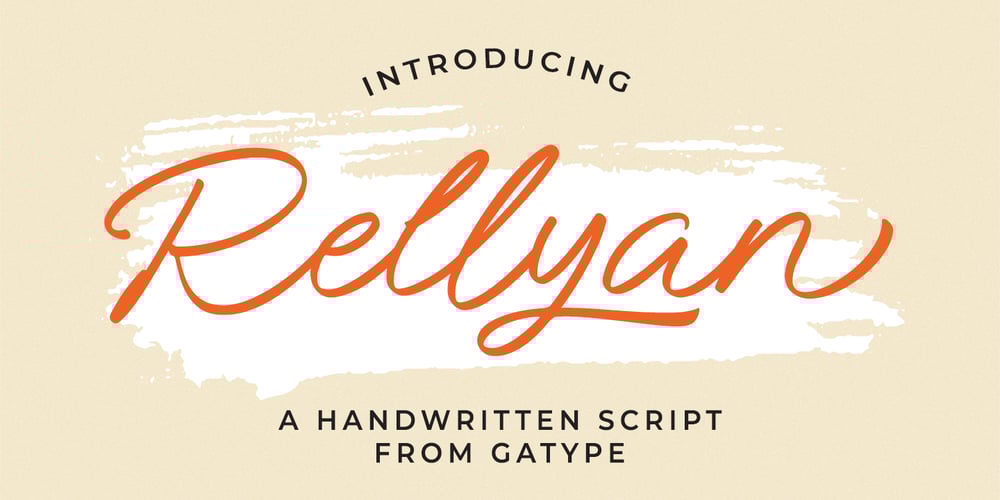
Rellyan Font Family was designed by khaidir and published by Gatype. Rellyan contains 1 styles and family package options. Hello friends… We are proud to present our new font. Rellyan’s new natural script with handwriting and script style makes this font look elegant, natural, stylish.Rellyan will be perfect for invitations, logos & branding, photography, advertising, watermarks, social media posts, product packaging, product designs, labels, wedding designs, stationery, special events or anything else that requires a taste for handwriting.Rellyan brings OpenType style alternatives, International binders, and support for most Western Languages is included. To enable the OpenType Stylistic alternative, you need a program that supports OpenType features such as Adobe Illustrator CS, Adobe Indesign & CorelDraw X6-X7, Microsoft Word 2010 or later.Thank you very much for viewing and enjoying it.